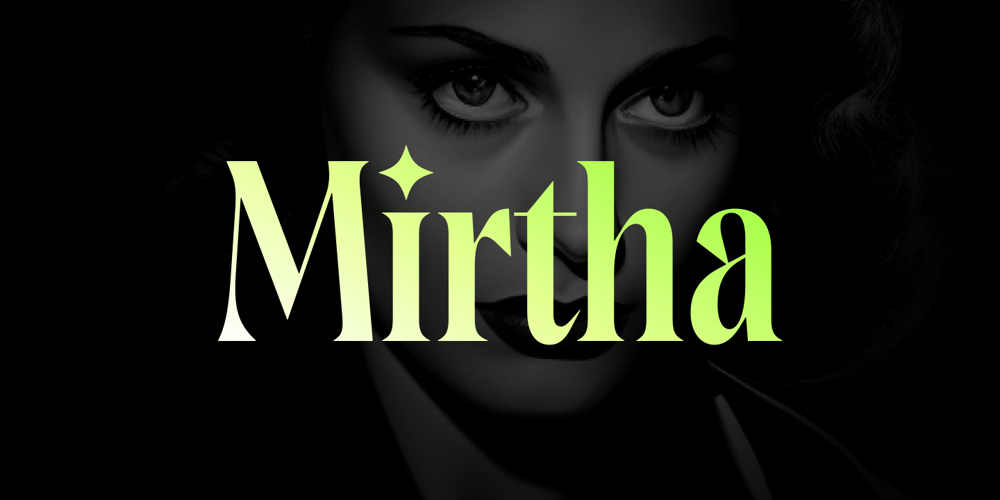
Mirtha Display Font Family was designed by Guillermo and published by Nois. Mirtha Display contains 10 styles and family package options. Mirtha Display is a modern display font with distinct Art Nouveau details. Its lighter weights are condensed and sophisticated, while the heavier weights have a more powerful effect, making it perfect for headlines, posters, branding, logos, packaging and more.With a set of over 450 glyphs, this font supports a wide range of languages.Key OpenType Features include numerators and denominators, Old Style and Lining numbers, standard ligatures and localized characters such as Uppercase and Lowercase Sharp S.Mirtha Display covers 5 weights, 10 styles and 2 Variable cuts (regular and italic) to give you more design flexibility. Any suggestion to continue improving Mirtha Display will be welcome, do not hesitate to contact us!